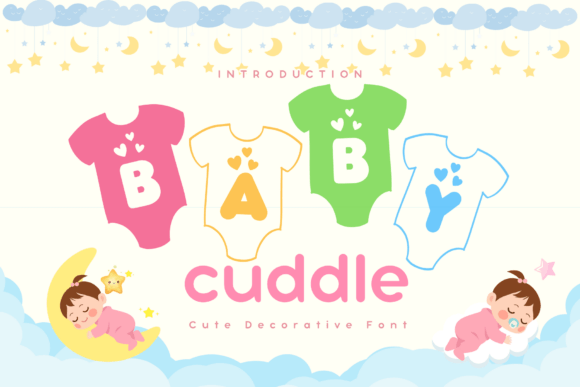
Introduction to Baby Cuddle Font
Baby Cuddle Font is a cute and playful decorative typeface inspired by baby outfits and heartwarming designs.
Each letter is styled inside an adorable baby onesie shape with sweet heart accents, making it perfect for children’s projects, baby shower invitations, newborn announcements, nursery wall art, kids’ apparel, logos, and crafting projects This font brings joy, love, and cuteness to any design, ideal for both print and digital use.
Key Features of Baby Cuddle Font